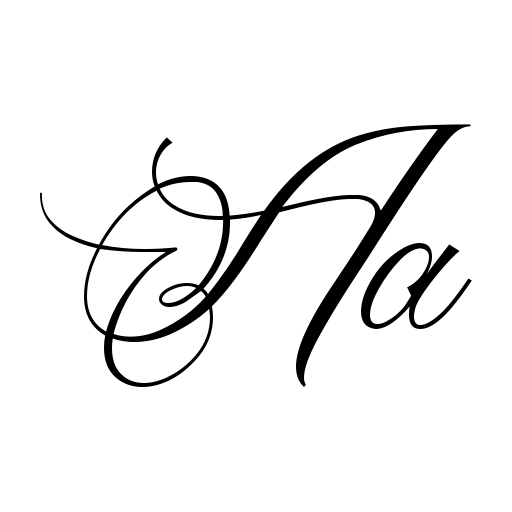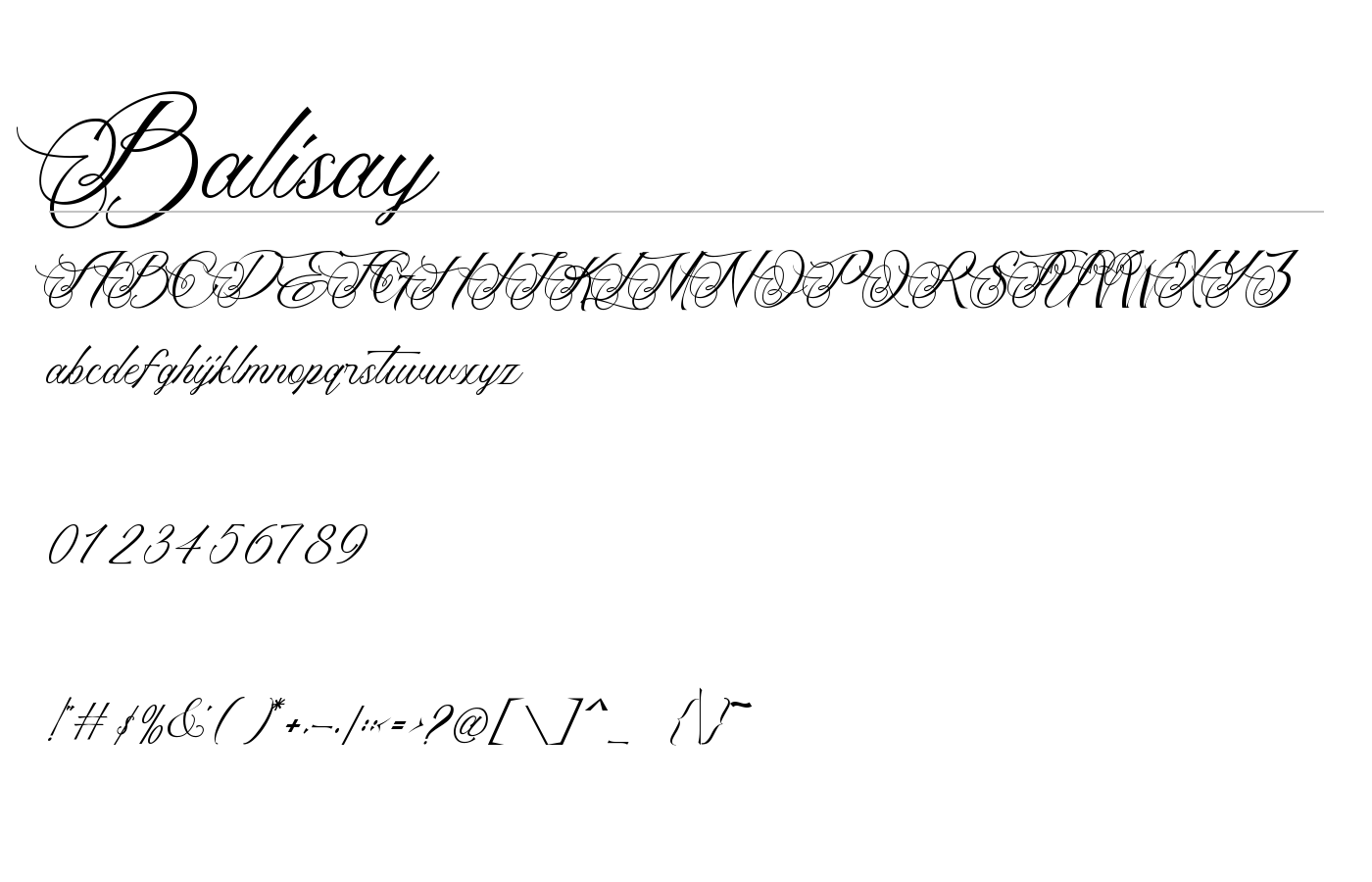
Balisay is an elegant script font characterized by its delicate, flowing strokes and ornate uppercase letters with intricate flourishes. It has a graceful, sophisticated feel, making it ideal for luxury branding, wedding invitations, and upscale editorial designs where a refined, classic look is desired. Its slender letterforms and high contrast strokes convey a sense of beauty and personality, perfect for decorative and formal use.
Balisay Font
About Balisay Font
| Font family | Balisay Font |
| Designer | Muhamad Yusron Billah |